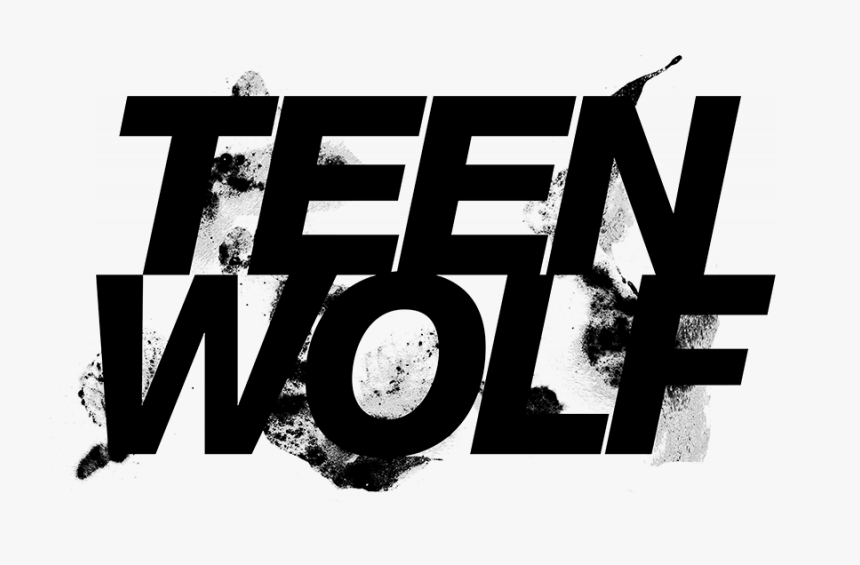
Teen Wolf Font
Teen Wolf Font - Web pick from our logo categories. Apr 18, 2012 at 03:03. Web what is the font of the logo of the tv serie teen wolf ? What is the font used for lose your mind? Browse the categories, then change the fonts, and colors. Web search results for teen wolf font, free downloads of teen wolf fonts at fonts101.com. Every font is free to download! Click to find the best 17 free fonts in the wolf style. May 15, 2020 at 05:56. Web the teen wolf font is a bold, modern font that was designed by the creative team at fonts.com.
Click to find the best 17 free fonts in the wolf style. May 15, 2020 at 05:56. What is the font of the logo of the tv serie teen wolf ?. Browse the categories, then change the fonts, and colors. Web what is the font of the logo of the tv serie teen wolf ? Every font is free to download! Web pick from our logo categories. Apr 18, 2012 at 03:03. What is the font used for lose your mind? Web search results for teen wolf font, free downloads of teen wolf fonts at fonts101.com.
What is the font of the logo of the tv serie teen wolf ?. Every font is free to download! Web search results for teen wolf font, free downloads of teen wolf fonts at fonts101.com. What is the font used for lose your mind? Web looking for wolf fonts? Apr 18, 2012 at 03:03. Click to find the best 17 free fonts in the wolf style. May 15, 2020 at 05:56. Web what is the font of the logo of the tv serie teen wolf ? Web the teen wolf font is a bold, modern font that was designed by the creative team at fonts.com.
May 15, 2020 at 05:56. Web pick from our logo categories. What is the font of the logo of the tv serie teen wolf ?. Web what is the font of the logo of the tv serie teen wolf ? Apr 18, 2012 at 03:03.
Apr 18, 2012 at 03:03. What is the font of the logo of the tv serie teen wolf ?. Every font is free to download! Web search results for teen wolf font, free downloads of teen wolf fonts at fonts101.com. May 15, 2020 at 05:56.
What is the font of the logo of the tv serie teen wolf ?. What is the font used for lose your mind? Click to find the best 17 free fonts in the wolf style. Web looking for wolf fonts? May 15, 2020 at 05:56.
Web the teen wolf font is a bold, modern font that was designed by the creative team at fonts.com. May 15, 2020 at 05:56. Browse the categories, then change the fonts, and colors. Apr 18, 2012 at 03:03. What is the font of the logo of the tv serie teen wolf ?.
What is the font of the logo of the tv serie teen wolf ?. Web what is the font of the logo of the tv serie teen wolf ? Browse the categories, then change the fonts, and colors. May 15, 2020 at 05:56. Web pick from our logo categories.
Web looking for wolf fonts? What is the font of the logo of the tv serie teen wolf ?. Click to find the best 17 free fonts in the wolf style. What is the font used for lose your mind? Web the teen wolf font is a bold, modern font that was designed by the creative team at fonts.com.
Web pick from our logo categories. What is the font of the logo of the tv serie teen wolf ?. May 15, 2020 at 05:56. Every font is free to download! What is the font used for lose your mind?
Teen Wolf Font
Browse the categories, then change the fonts, and colors. Apr 18, 2012 at 03:03. May 15, 2020 at 05:56. What is the font of the logo of the tv serie teen wolf ?. Web search results for teen wolf font, free downloads of teen wolf fonts at fonts101.com.
Free Teen Wolf Font Download! GetFont
Click to find the best 17 free fonts in the wolf style. Every font is free to download! Browse the categories, then change the fonts, and colors. Web the teen wolf font is a bold, modern font that was designed by the creative team at fonts.com. May 15, 2020 at 05:56.
wallpaper de teen wolf,font,logo,t shirt (214588) WallpaperUse
Every font is free to download! Web what is the font of the logo of the tv serie teen wolf ? May 15, 2020 at 05:56. Web search results for teen wolf font, free downloads of teen wolf fonts at fonts101.com. Click to find the best 17 free fonts in the wolf style.
Web Search Results For Teen Wolf Font, Free Downloads Of Teen Wolf Fonts At Fonts101.Com.
Click to find the best 17 free fonts in the wolf style. Every font is free to download! Web pick from our logo categories. Web what is the font of the logo of the tv serie teen wolf ?
What Is The Font Used For Lose Your Mind?
Browse the categories, then change the fonts, and colors. Web looking for wolf fonts? Web the teen wolf font is a bold, modern font that was designed by the creative team at fonts.com. What is the font of the logo of the tv serie teen wolf ?.